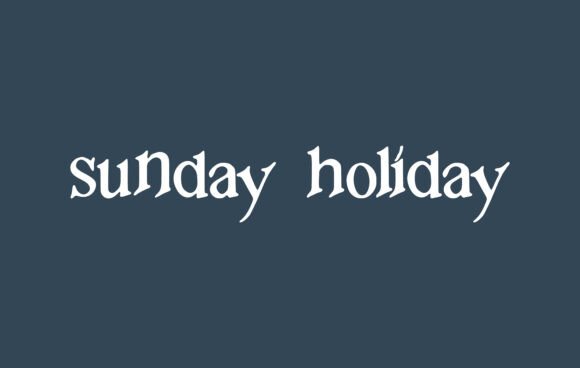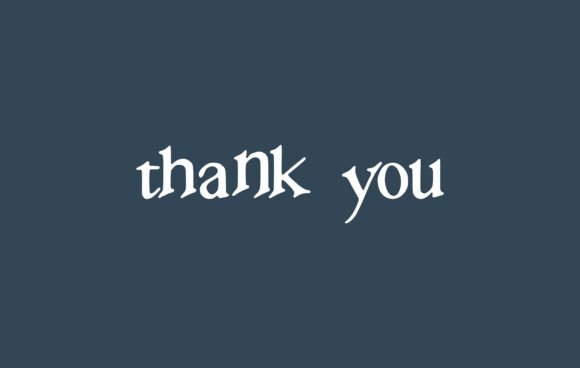
Crafty Kids Font: The Perfect Handwritten Font for Creative Projects
Are you a designer or crafter looking for a unique and authentic handwritten font to elevate your creative projects? Look no further than Crafty Kids Font! This beautifully designed font is perfect for adding a romantic touch to your designs, and its legibility makes it ideal for use as both title and body text.
What is Crafty Kids Font?
Crafty Kids Font is a carefully crafted handwritten font that exudes a sense of warmth and personality. Its authentic feel makes it perfect for a wide range of design applications, from magazine headlines and social media graphics to branding, wedding invitations, and greeting cards.
Key Features of Crafty Kids Font
- Authentic Handwritten Style: Crafty Kids Font is designed to mimic the look and feel of handwritten text, giving your designs a personal and unique touch.
- Romantic Touch: This font has a distinctly romantic feel, making it perfect for designs that require a touch of elegance and sophistication.
- Legibility: Despite its handwritten style, Crafty Kids Font is highly legible, making it suitable for use as both title and body text.
- Versatility: This font can be used for a wide range of design applications, from digital graphics to print materials.
Uses for Crafty Kids Font
Crafty Kids Font is an incredibly versatile font that can be used for a wide range of design projects. Here are just a few ideas to get you started:
- Magazine Headlines: Add a touch of personality to your magazine headlines with Crafty Kids Font.
- Social Media Graphics: Use this font to create eye-catching social media graphics that stand out from the crowd.
- Branding: Crafty Kids Font is perfect for creating unique and memorable brand identities.
- Wedding Invitations: Add a romantic touch to your wedding invitations with this beautiful handwritten font.
- Greeting Cards: Use Crafty Kids Font to create personalized and heartfelt greeting cards.
Why Choose Crafty Kids Font?
With so many fonts to choose from, why should you choose Crafty Kids Font? Here are just a few reasons:
- Unique Style: Crafty Kids Font has a unique and authentic style that will set your designs apart from the crowd.
- Ease of Use: This font is incredibly easy to use, and its legibility makes it perfect for use as both title and body text.
- High-Quality Design: Crafty Kids Font is expertly designed to provide a high-quality look and feel.
Tips for Using Crafty Kids Font
Here are a few tips for getting the most out of Crafty Kids Font:
- Experiment with Different Sizes: Try using Crafty Kids Font in different sizes to add visual interest to your designs.
- Pair with Other Fonts: Experiment with pairing Crafty Kids Font with other fonts to create unique and interesting combinations.
- Use for Body Text: Don’t be afraid to use Crafty Kids Font as body text – its legibility makes it perfect for longer blocks of text.
Crafty Kids Font is a beautiful and versatile handwritten font that is perfect for designers and crafters looking to add a touch of personality to their creative projects. With its authentic style, romantic feel, and high legibility, this font is sure to become a favorite in your design toolkit. So why wait? Download Crafty Kids Font today and start taking your designs to the next level!